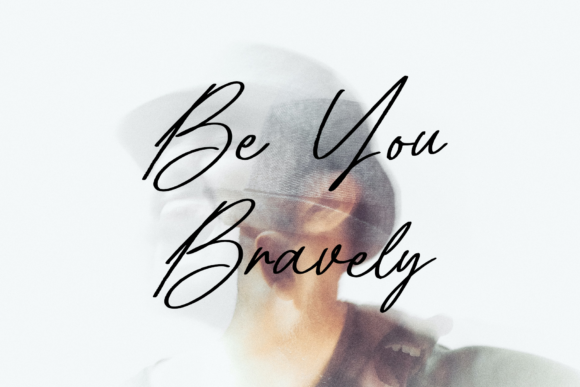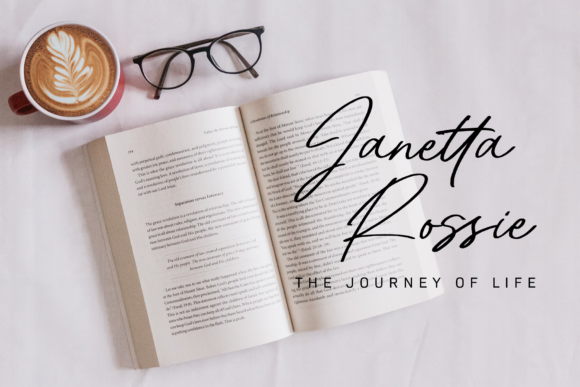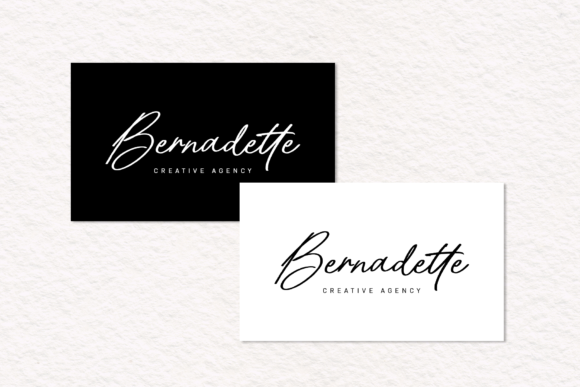
Introduction to Shuterstone Font
Have you ever found yourself stuck in a creative rut, searching for that perfect font to bring your project to life? You know, that one magical moment when everything falls into place, and your design starts to shine. For designers, this moment is what we live for, and it’s precisely what the Shuterstone Font has the power to deliver.
This beautiful, flowing handwritten font is more than just a design resource – it’s a game-changer. With its elegant touch and timeless style, Shuterstone Font is the perfect addition to any creative project. Whether you’re working on a high-quality brochure, a website with a transparent background, or a social media graphic, this font is sure to elevate your design to new heights.
Key Features of Shuterstone Font
- High-quality design resource ideal for creative projects, offering a unique and elegant touch.
- Features a transparent background, allowing for easy customization and versatility in your design.
- Unique and stylish design, perfect for adding a touch of sophistication to your creative project.
Honest Review: Shuterstone Font
As a designer, I’m always on the lookout for high-quality design resources that can elevate my creative projects. Recently, I stumbled upon the Shuterstone Font, and I’m excited to share my honest review with you.
- ✨ The Shuterstone Font has a unique, elegant design that’s perfect for a wide range of creative projects, from typography-based art to branding materials.
- ✨ The font is highly customizable, allowing me to adjust the size, color, and style to suit my design needs.
- ⚠️ The font may not be suitable for all types of designs, particularly those that require a more modern or bold look.
- ⚠️ The transparent background feature can sometimes cause issues with text alignment and layout.
Overall, I’m impressed with the Shuterstone Font’s quality and versatility. While it may not be the best fit for every design project, it’s definitely a valuable addition to any designer’s toolkit. If you’re looking for a high-quality, free font with a unique design, the Shuterstone Font is definitely worth checking out.
Tips for Getting the Most Out of Shuterstone Font
For the best results, use Shuterstone Font on a transparent background to give your design a clean and professional look.
Experiment with different font sizes and styles to add visual interest to your project.
Common Use Cases for Shuterstone Font
Shuterstone Font is perfect for creative projects such as logos, brochures, and social media graphics.
Its high-quality design makes it an ideal resource for businesses and individuals looking to create a professional image.